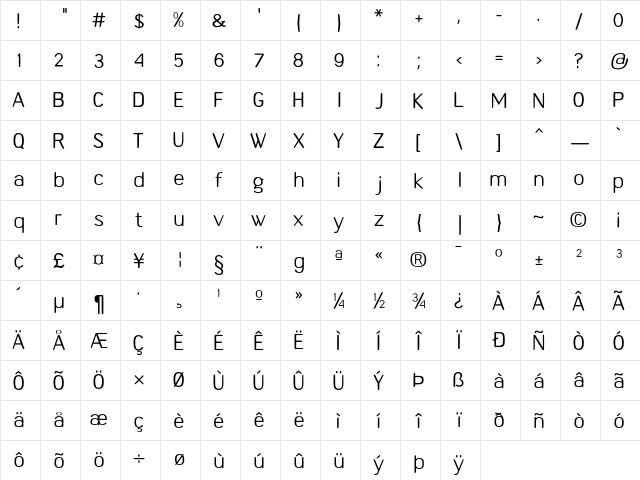
Felthgothic Regular Font Preview
Felthgothic Regular
Felthgothic Regular Font Details
Design Context for Felthgothic Typeface
Felthgothic takes a clean, functional approach — its unadorned letterforms prioritise legibility and work reliably across screen and print environments.
Font Pairing: Works well alongside a characterful serif or display font that can carry the expressive load while Felthgothic handles the functional copy.
Pro Tip: Pair Felthgothic with a display or serif font for headlines — its neutral character makes it an excellent supporting player in complex typographic systems.